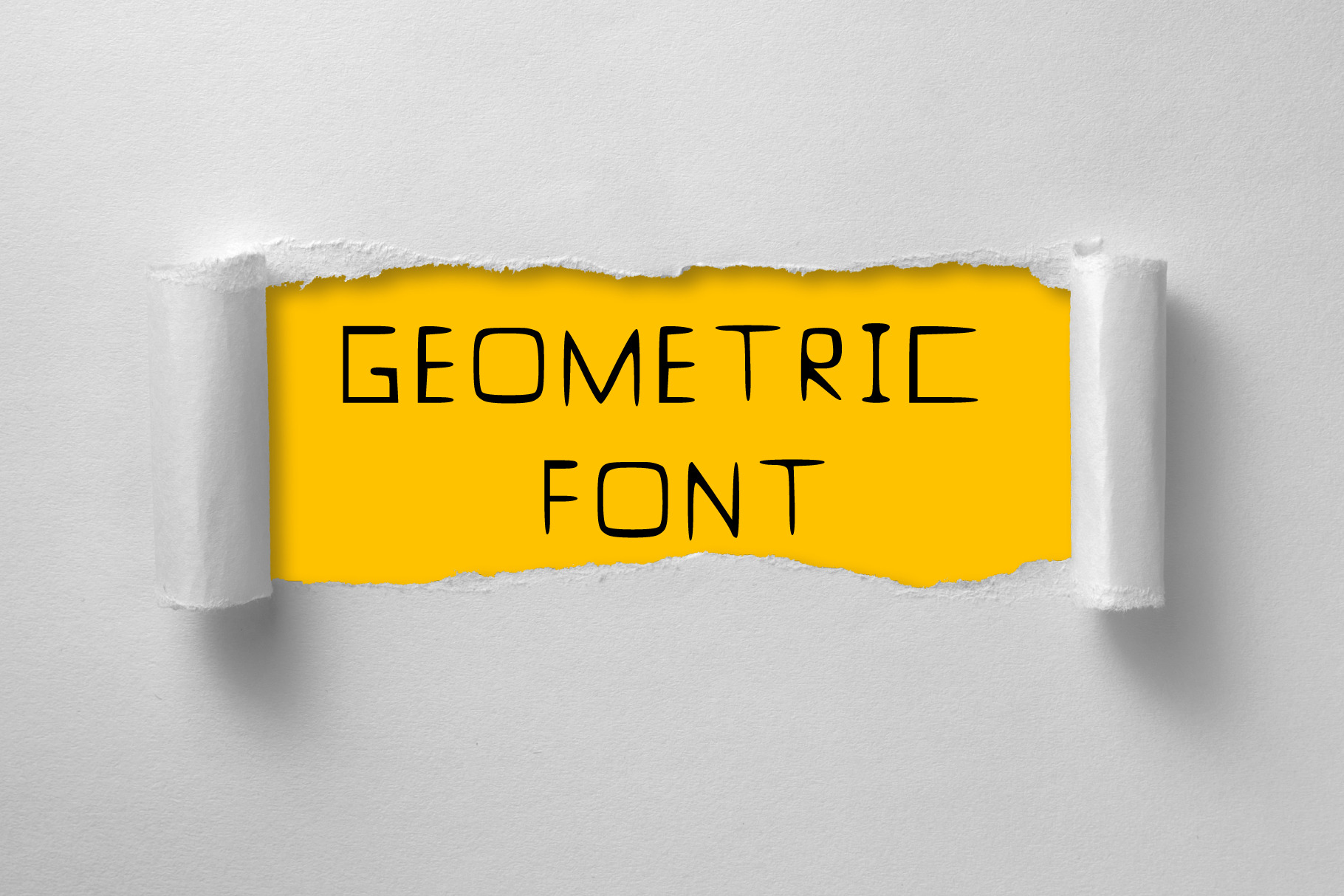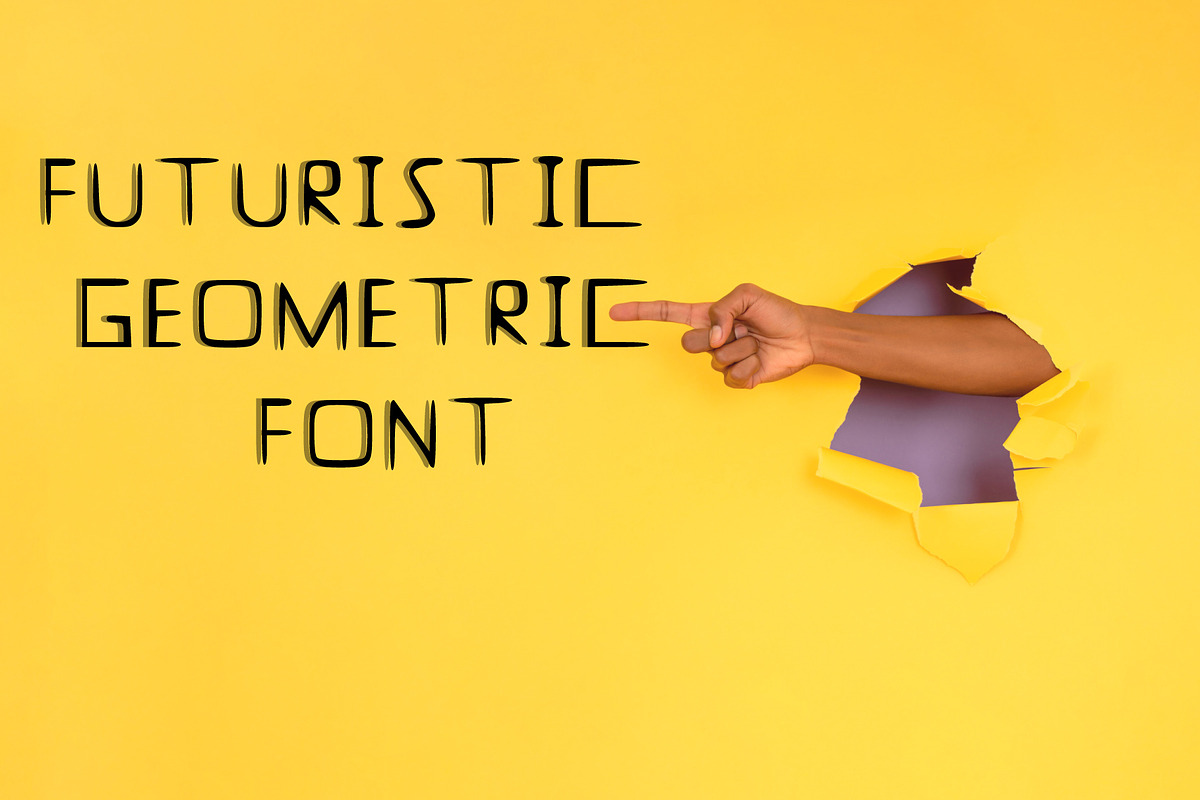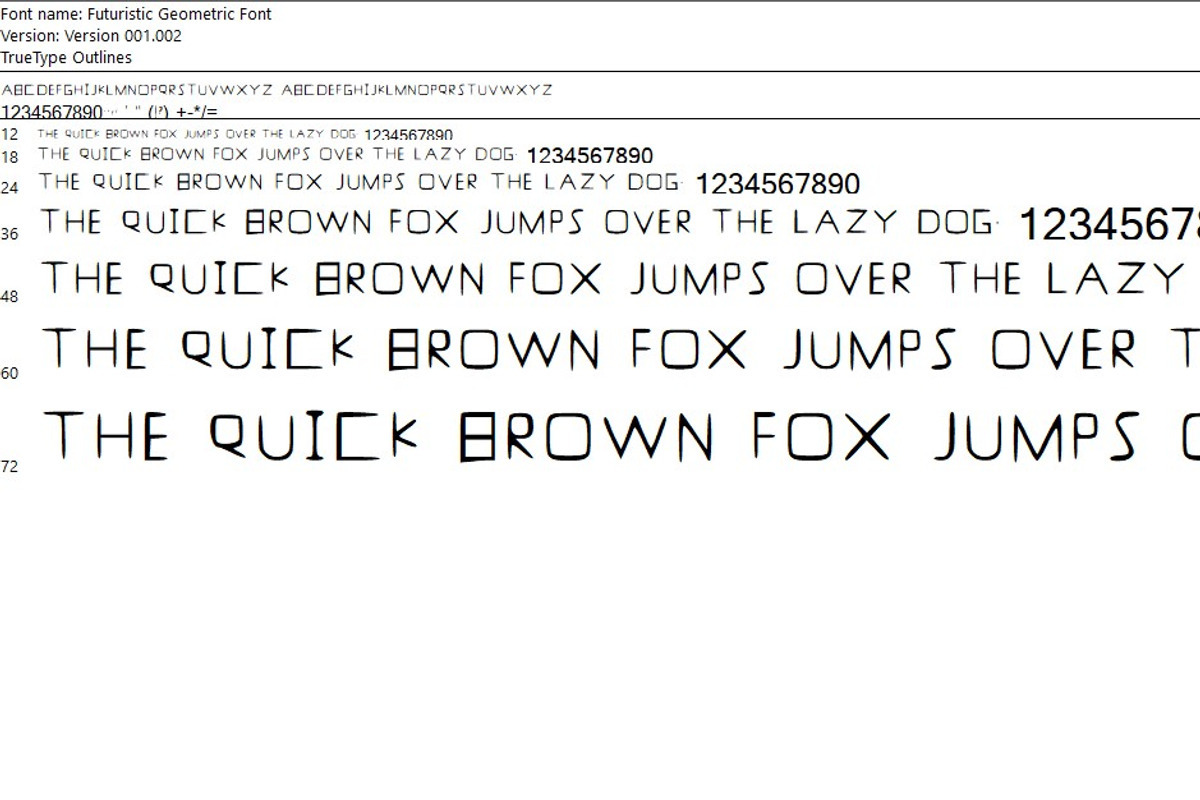
Futuristic Geometric Display Font
Introducing a unique futuristic geometric display font designed with abstract angles and minimal strokes. This uppercase-only typeface blends a cyberpunk aesthetic with clean, modern lines, perfect for sci-fi projects, digital posters, tech branding, logos, and innovative UI design. Each character features a creative, deconstructed look that adds a sense of digital sophistication and edge. Includes symbols and punctuation, making it a versatile font for standout typography projects.
Uppercase Letters A–Z
Modern Abstract Design
Perfect for Posters, Apps, Games